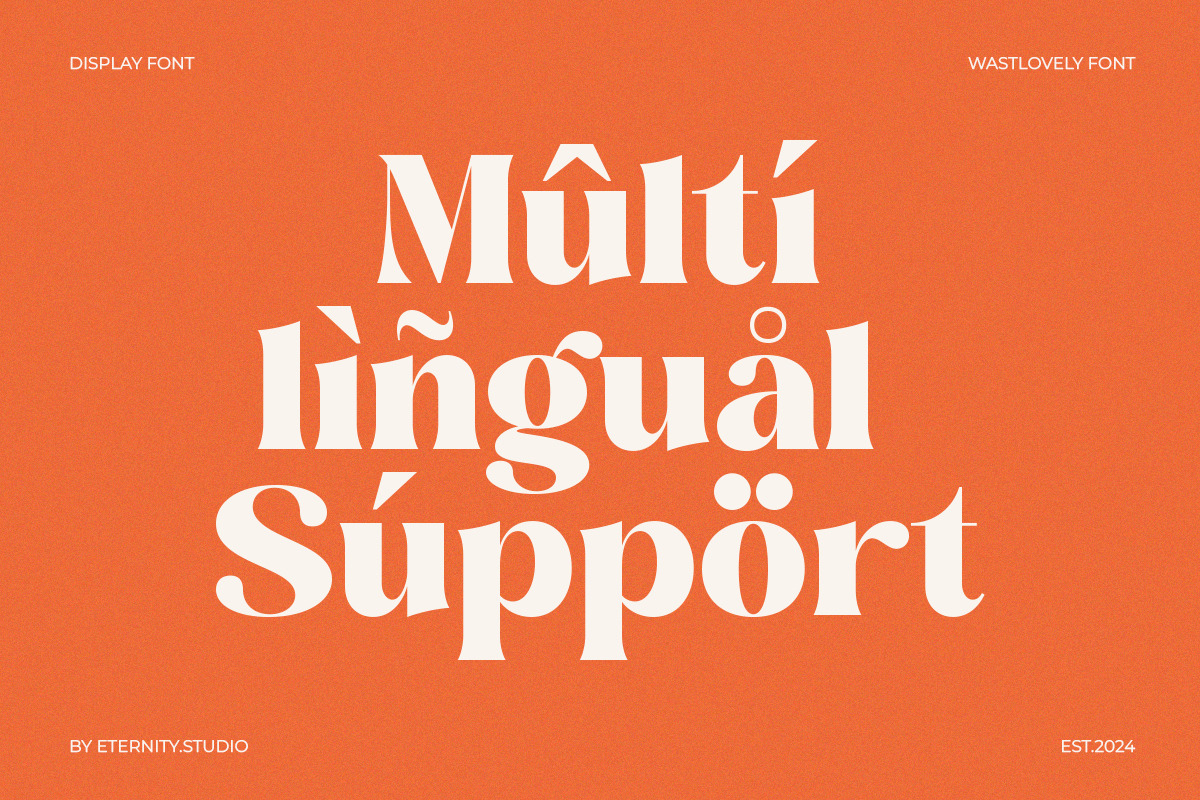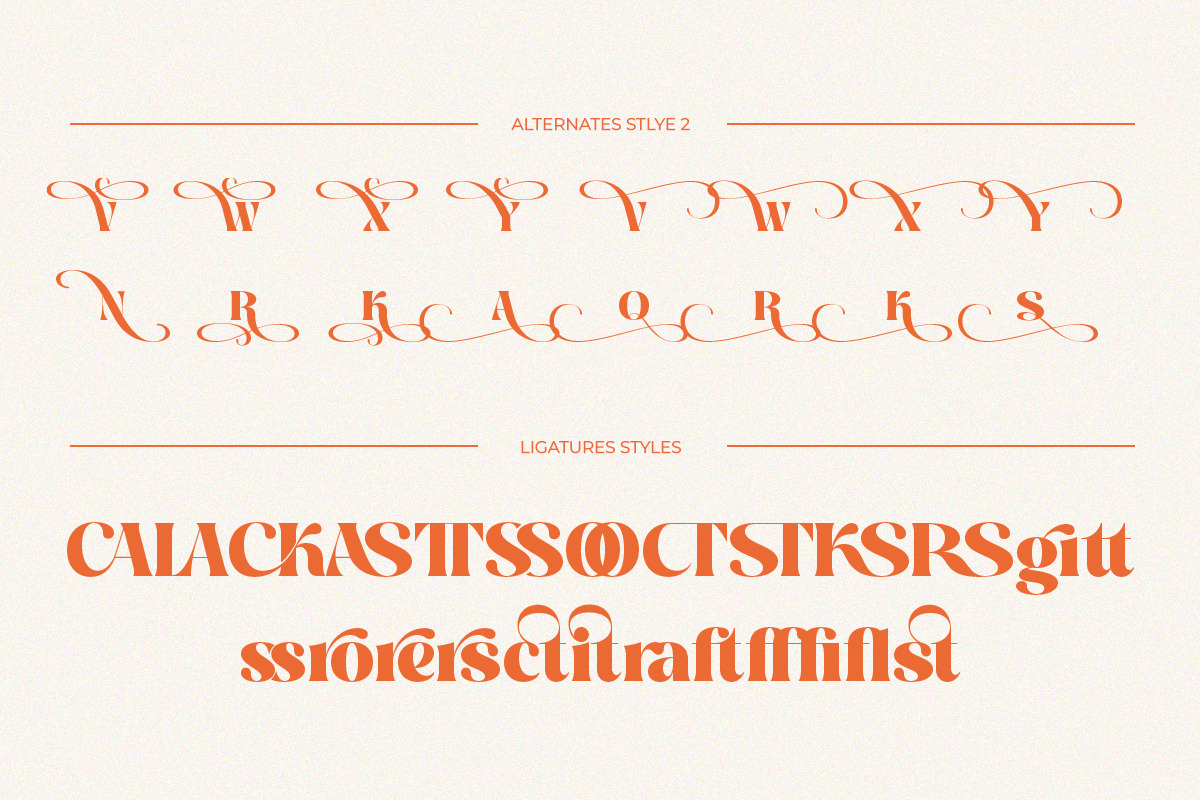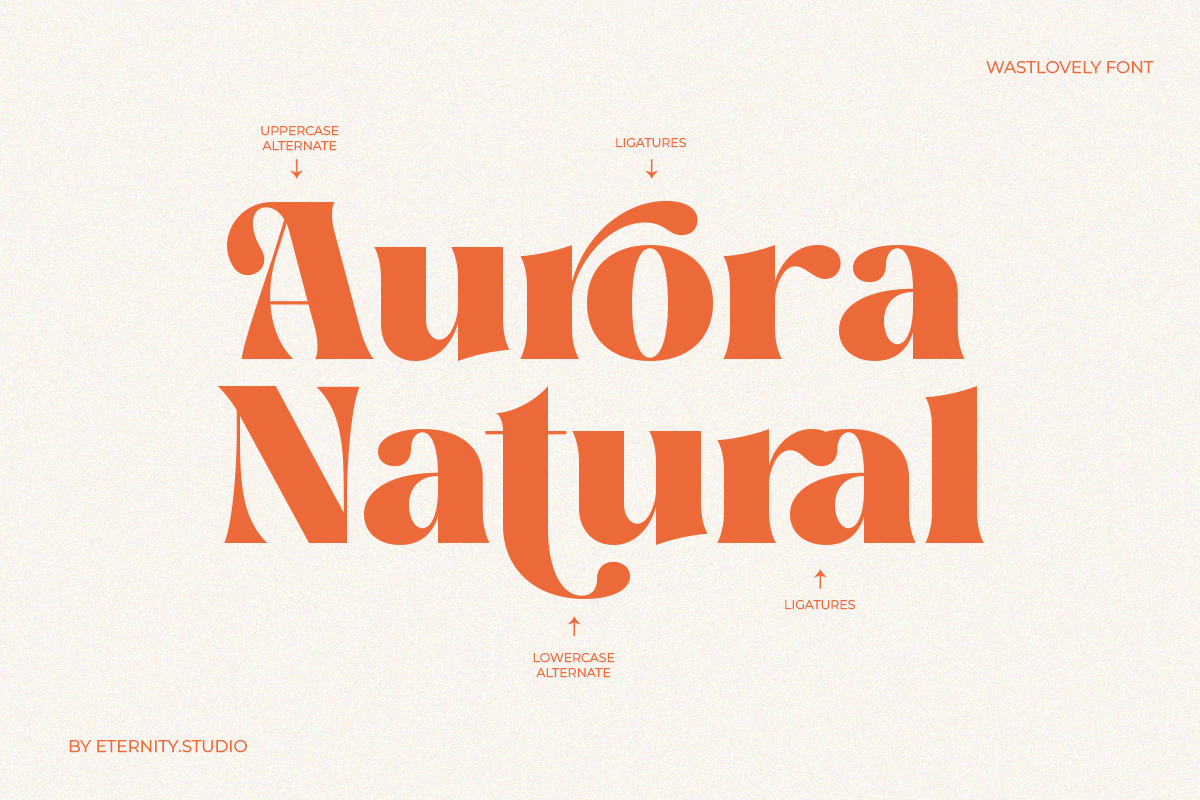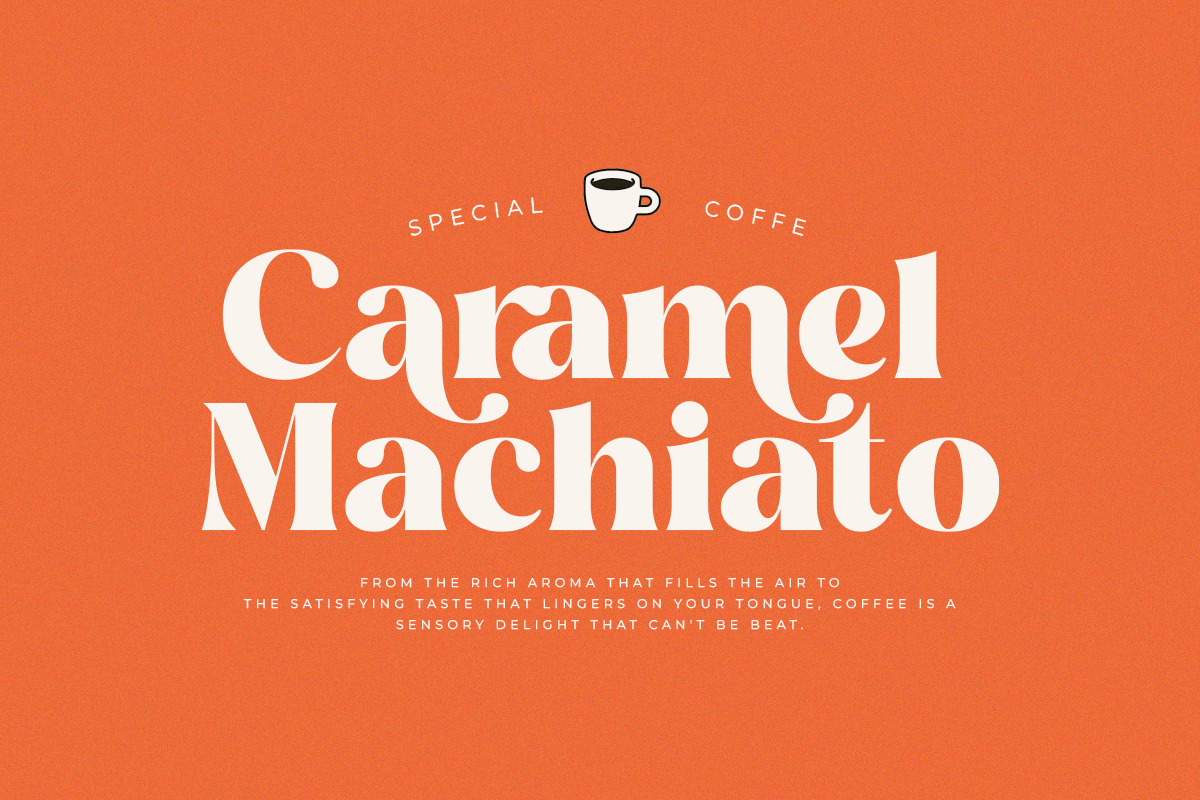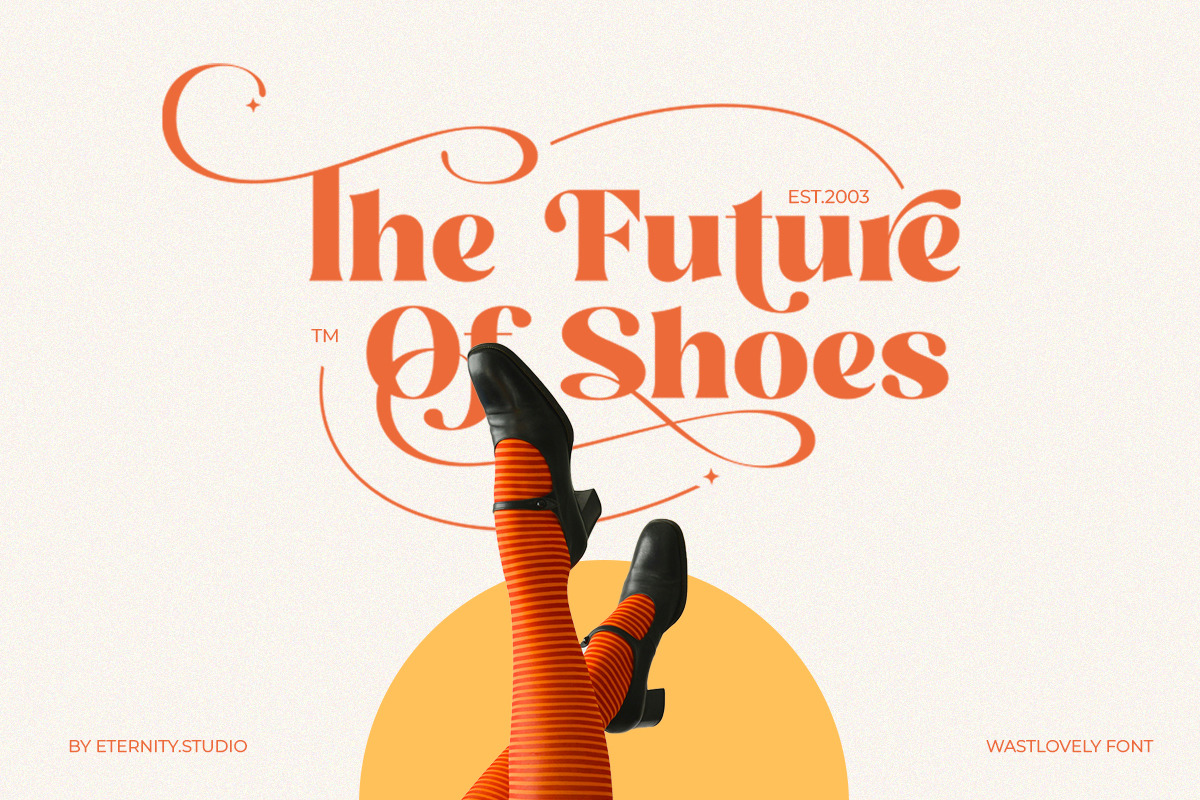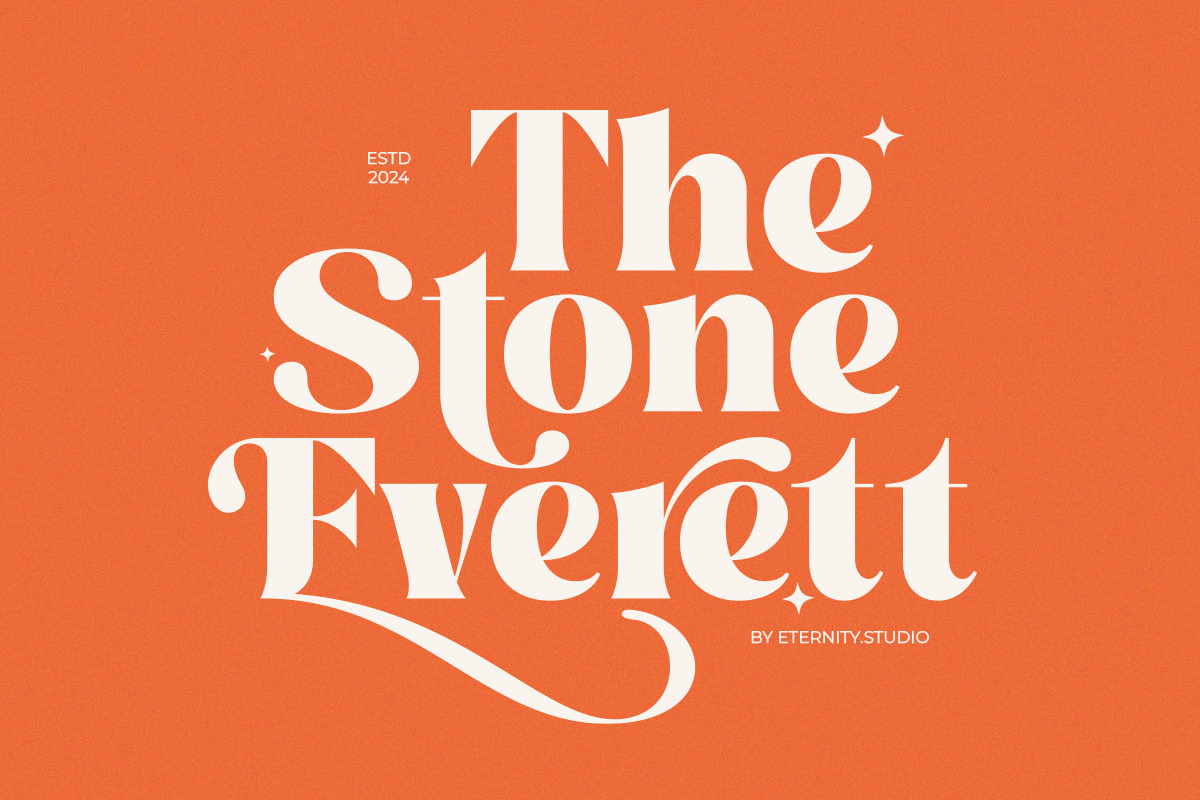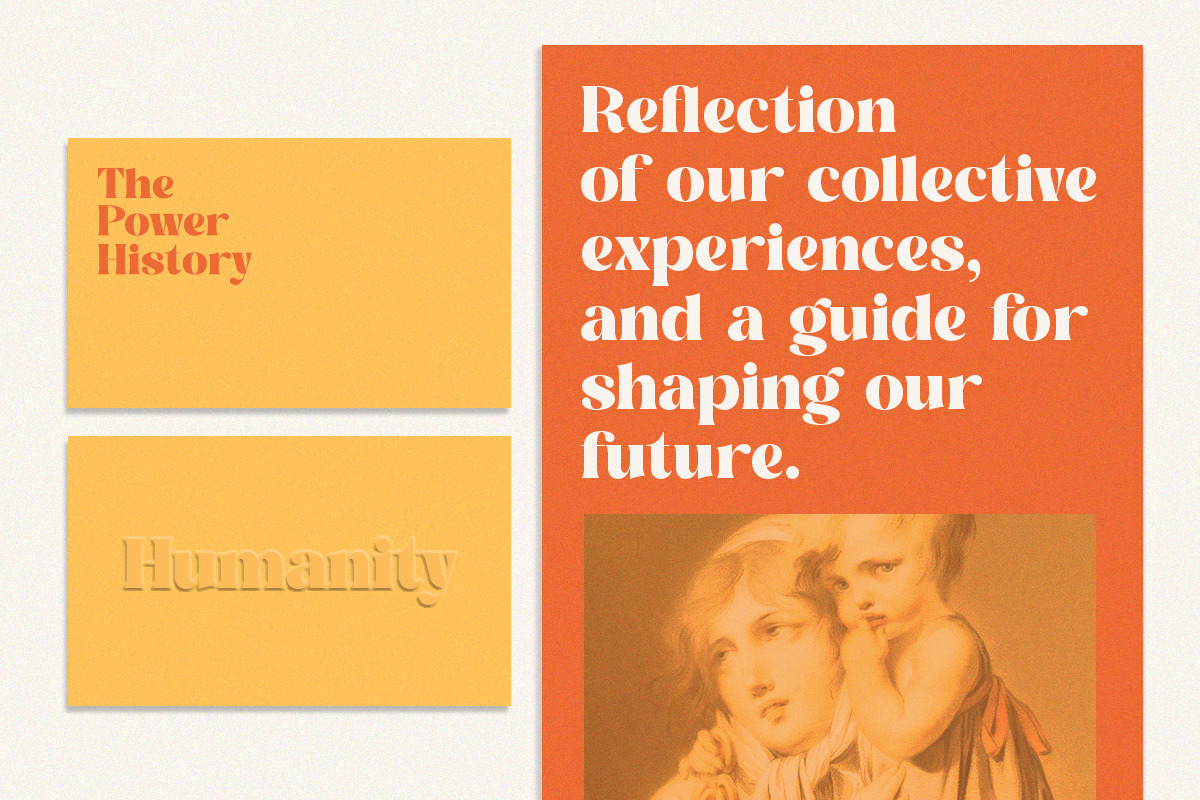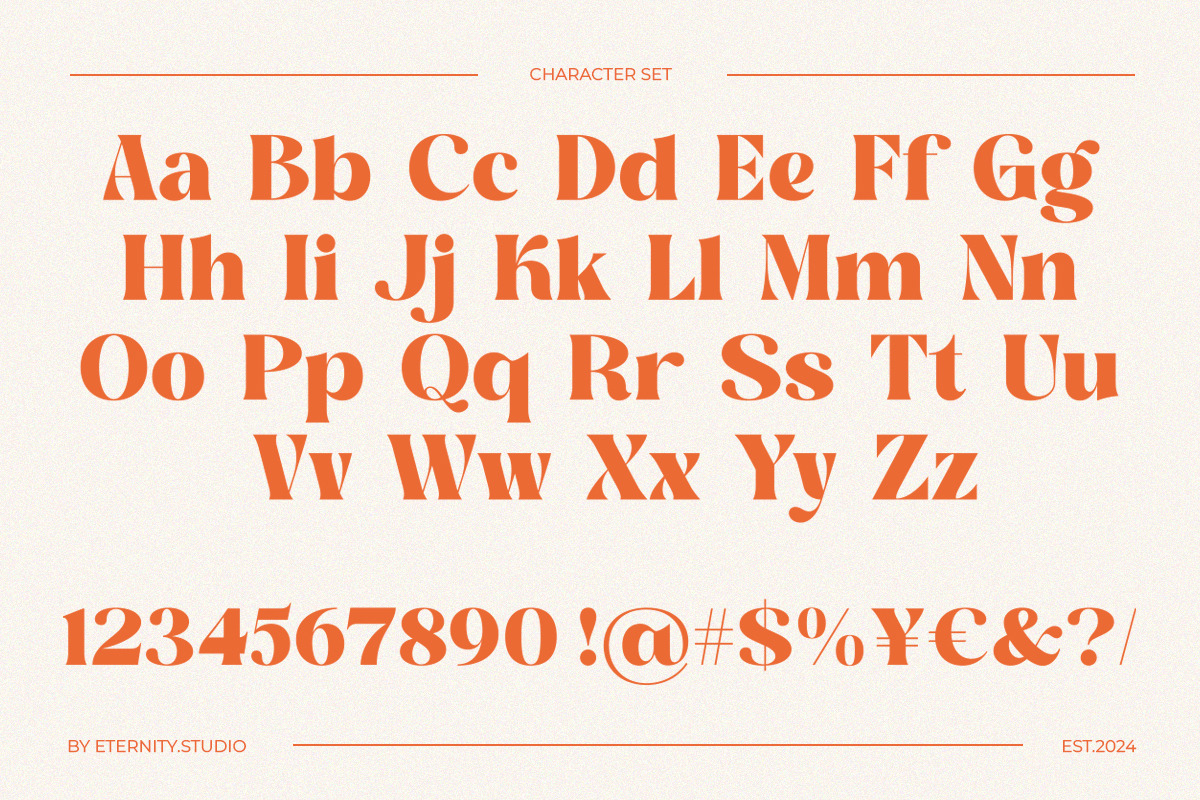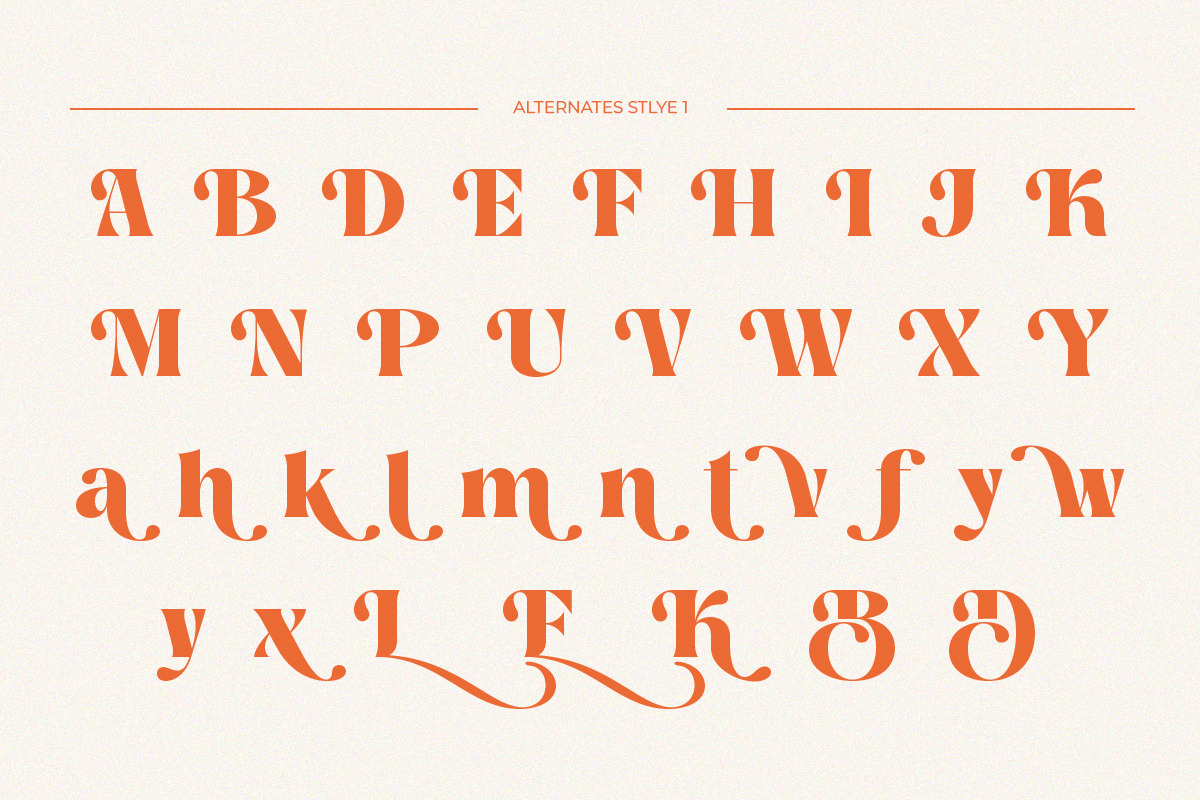
Wast Lovely Stylish Retro
Introducing the Wast Lovely Stylish Retro! This font isn't just about style—it's about making your designs 80-90s with retro style. With its sleek alternates and graceful ligatures, Wast Lovely is perfect for all your graphic design needs. Whether you're crafting a logo, designing a poster, or creating a stunning website, this font delivers.
Ensuring compatibility across platforms. Plus, it's multilingual-friendly, so no matter which language you're working with, Wast Lovely has your back.